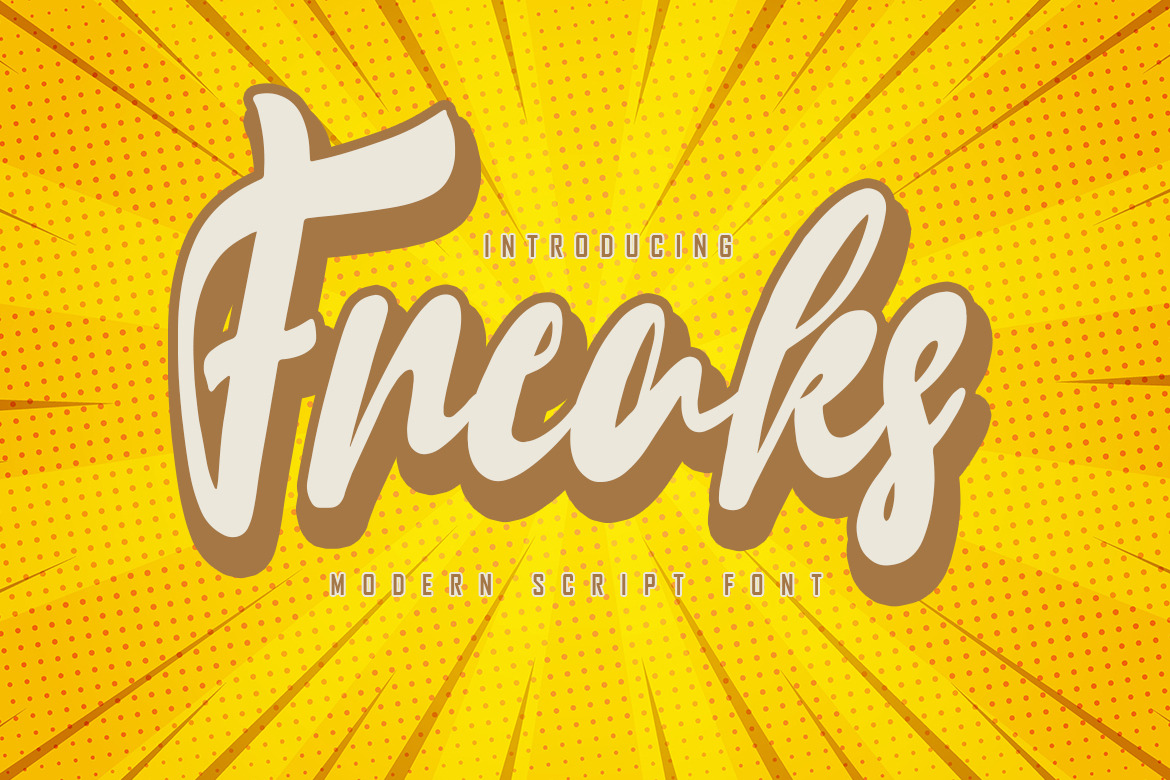
Freaks - Modern Script Font
Freaks Handwritten script with a natural flow and beautiful style. Freaks is perfect for invitation design projects, prewedding, branding, logos, wedding designs, social media posts, advertisements, product packaging, product design, labels, photography, watermarks, invitations, stationery, and any project that requires handwriting tastes .